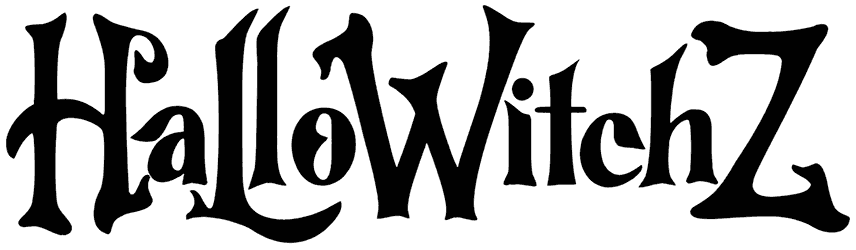
HalloWitchZ Font
HalloWitchZ is a magical witch font that is masterfully created to widen your selection range in the middle of designing posters, product packaging, product labels, and magazines. Despite the undeniable fact that this Halloween font doesn’t include numbers, it still leads to a sense of courage, dynamic, freshness, and youth, so make the best possible outcome out of this font by forgetting its deficiency.